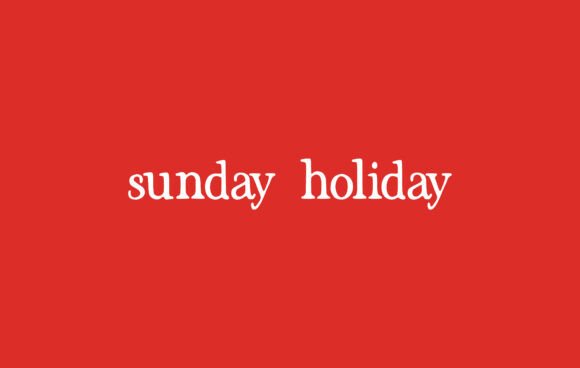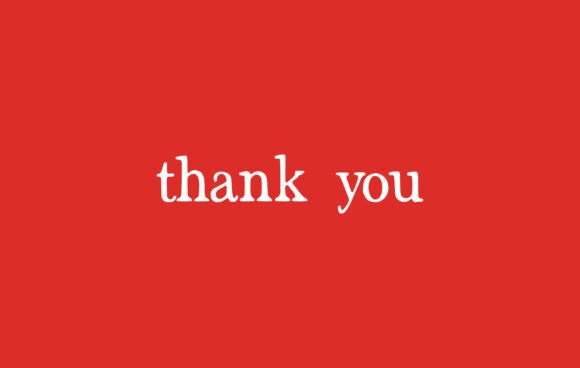
Introduction to Pioneer Script Font
Pioneer Script blends traditional serif elegance with a rugged, adventurous spirit.
It features subtle flourishes and bold character, making it perfect for logos, vintage posters, and designs with a pioneer or outdoors theme .
Why Choose Pioneer Script Font?